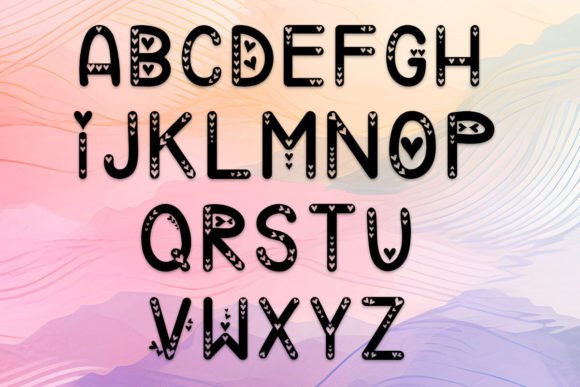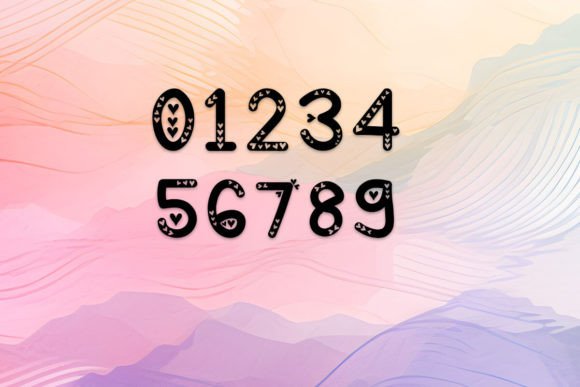
Heart Love Font: The Perfect Expression of Emotions for Designers and Crafters
Are you a designer or crafter looking for a unique and expressive font to convey love and emotions in your artistic creations? Look no further than the Heart Love Font, a beautiful and decorative font that is infused with love. This stunning font features 26 capital letters and 10 numbers (0-9), making it perfect for a wide range of creative projects, from heartfelt messages to artistic expressions.
What is Heart Love Font?
Heart Love Font is a carefully crafted, decorative font that is designed to capture the essence of love and emotions. Each letter and number is uniquely designed to convey a sense of warmth, care, and affection, making it an ideal choice for designers and crafters who want to add a personal touch to their creations.
Key Features of Heart Love Font
- 26 Capital Letters: The Heart Love Font features 26 beautifully designed capital letters, each one infused with love and care.
- 10 Numbers (0-9): In addition to the capital letters, the font also includes 10 numbers (0-9), making it perfect for a wide range of creative projects.
- Expressive and Decorative: The font is designed to be expressive and decorative, making it perfect for artistic creations and heartfelt messages.
Heart Love Font is perfect for designers and crafters who want to add a personal touch to their creations. Whether you’re creating a handmade card, a customized gift, or a beautiful piece of art, this font is sure to inspire and delight. The font’s unique and decorative design makes it perfect for a wide range of creative projects, including:
- Handmade Cards: Add a personal touch to your handmade cards with the Heart Love Font.
- Customized Gifts: Create customized gifts, such as mugs, t-shirts, and tote bags, with the Heart Love Font.
- Artistic Creations: Use the Heart Love Font to add a decorative touch to your artistic creations, such as paintings, drawings, and collages.
- Digital Art: The font is also perfect for digital art, including social media graphics, blog posts, and website designs.
Why Choose Heart Love Font?
There are many reasons why designers and crafters choose Heart Love Font for their creative projects. Here are just a few:
- Unique Design: The font’s unique and decorative design makes it stand out from other fonts.
- Emotional Connection: The font is designed to convey love and emotions, making it perfect for heartfelt messages and artistic expressions.
In conclusion, Heart Love Font is a beautiful and decorative font that is perfect for designers and crafters who want to add a personal touch to their creations. With its unique and expressive design, this font is sure to inspire and delight. Whether you’re creating a handmade card, a customized gift, or a beautiful piece of art, Heart Love Font is the perfect choice. So why wait? Download Heart Love Font today and start creating your own beautiful and heartfelt projects!